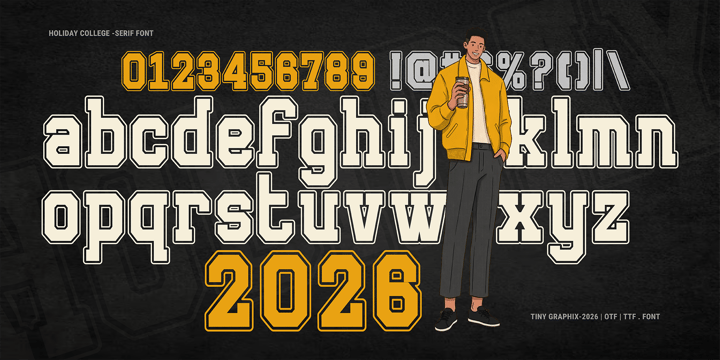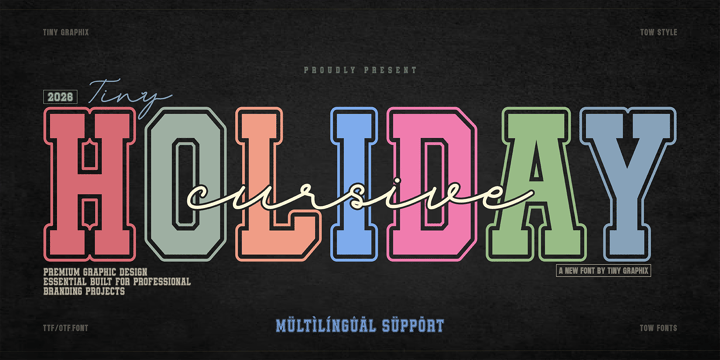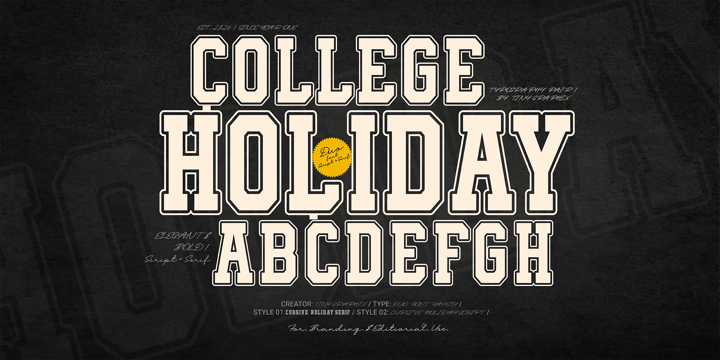
Yamuna Vinodani
I am Yamuna Vinodani, a passionate type designer based in Sri Lanka, dedicated to creating high-quality, innovative typography that speaks to modern design trends. My journey into the world of type design began with a fascination for how letterforms can convey emotion and personality. Over the years, I have developed a diverse portfolio of over 55 fonts, ranging from elegant, hand-drawn scripts to bold, versatile display faces that cater to various creative needs.
My design philosophy focuses on the balance between artistic expression and technical precision. I believe that every font should tell a story and provide designers with the perfect tools to elevate their visual projects, whether it’s for branding, editorial work, or digital media. My work is inspired by both contemporary aesthetics and classic influences, allowing me to craft typefaces that are both timeless and trendy. I am committed to continuous learning and refining my craft to ensure that every font I release meets the highest standards of the global design community. I look forward to sharing my creative vision through Monotype and helping designers around the world find the perfect voice for their projects.